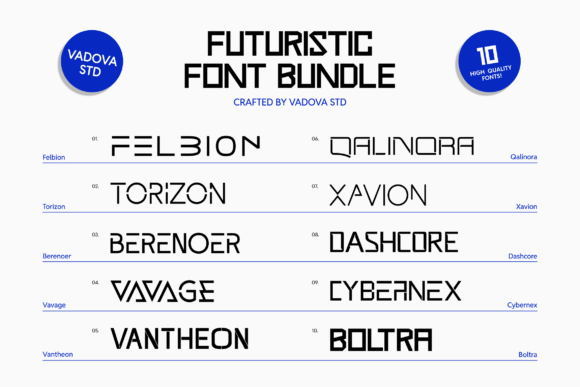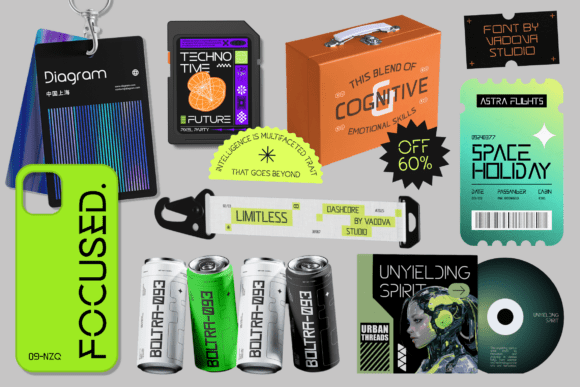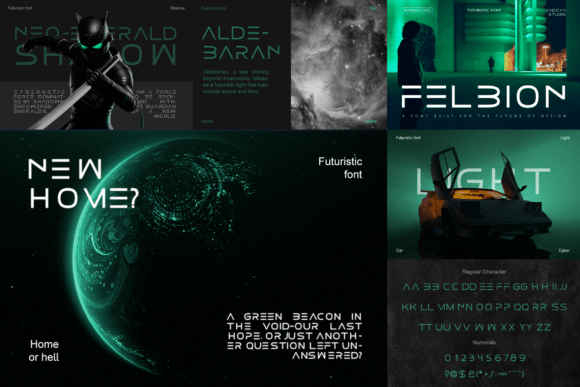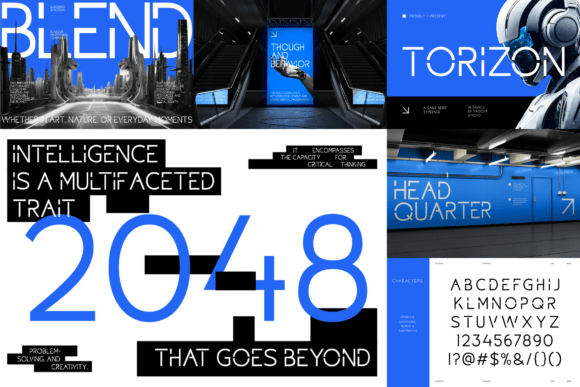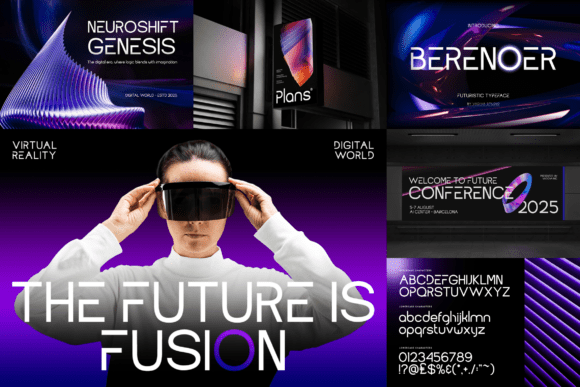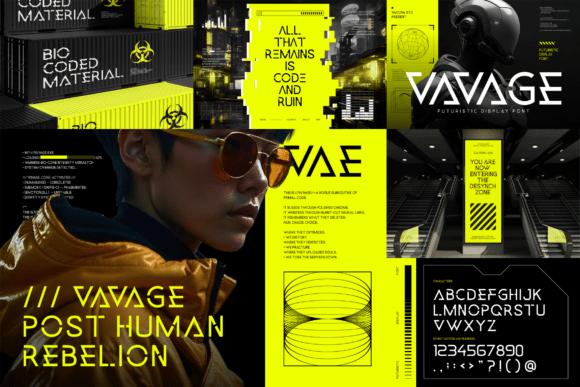
Introduction to Futuristic Bundle Vol.01 Font
Imagine you’re working on a high-stakes creative project, and the client wants a bold, eye-catching visual identity that screams innovation and cutting-edge technology. You’ve been searching for the perfect font to convey that futuristic feel, but nothing seems quite right. That’s where the Futuristic Bundle Vol.01 Font comes in – a game-changing collection of modern display typefaces that will take your designs to the next level.
This bundle is a designer’s dream come true, featuring high-quality, free-to-download fonts that are perfect for tech branding, gaming visuals, digital products, posters, and experimental layouts. With its bold geometric forms and sharp futuristic details, this font bundle is sure to create a strong, innovative presence in any creative project.
Key Features of Futuristic Bundle Vol.01 Font
- High-quality, vector-based font designed for creative projects and futuristic themes
- Includes a transparent background option, allowing for seamless integration with various design elements
- Features a sleek, modern design with precise lines and shapes, ideal for futuristic and sci-fi inspired projects
- Resolution-independent, ensuring crisp and clear typography at any size or resolution
- Includes multiple font weights and styles, allowing for versatility and customization in your design
Honest Review: Futuristic Bundle Vol.01 Font
I recently stumbled upon the Futuristic Bundle Vol.01 Font and was excited to dive in and see what it had to offer. As a designer, I’m always on the lookout for high quality design resources that can help elevate my creative projects.
Here are some things that work well with this font bundle:
- ✨ Wide range of styles and fonts to choose from, each with its own unique character and feel.
- ✨ High quality designs that are perfect for creating a futuristic or sci-fi aesthetic in your project.
- ✨ Transparent background option makes it easy to customize and integrate into your design.
- ⚠️ Some of the fonts may be a bit too bold or overpowering, so be sure to use them sparingly.
- ⚠️ Limited customization options, which may not be ideal for designers who like to get really creative with their fonts.
Overall, I’d say the Futuristic Bundle Vol.01 Font is a solid choice for designers looking to add some futuristic flair to their projects. While it may not be perfect, it’s a great free download that can help take your designs to the next level.
How to Use Futuristic Bundle Vol.01 Font
To get the most out of the Futuristic Bundle Vol.01 Font, use it with a transparent background to create a high-quality design. You can also pair the font with other design resources, such as icons or graphics, to create a cohesive look.
The Futuristic Bundle Vol.01 Font is ideal for creative projects that require a modern and futuristic look. Some common use cases include:
- Science fiction or futuristic-themed designs
- Technology or gadget-related designs
- Space or astronomy-themed designs
- Video game or animation-related designs